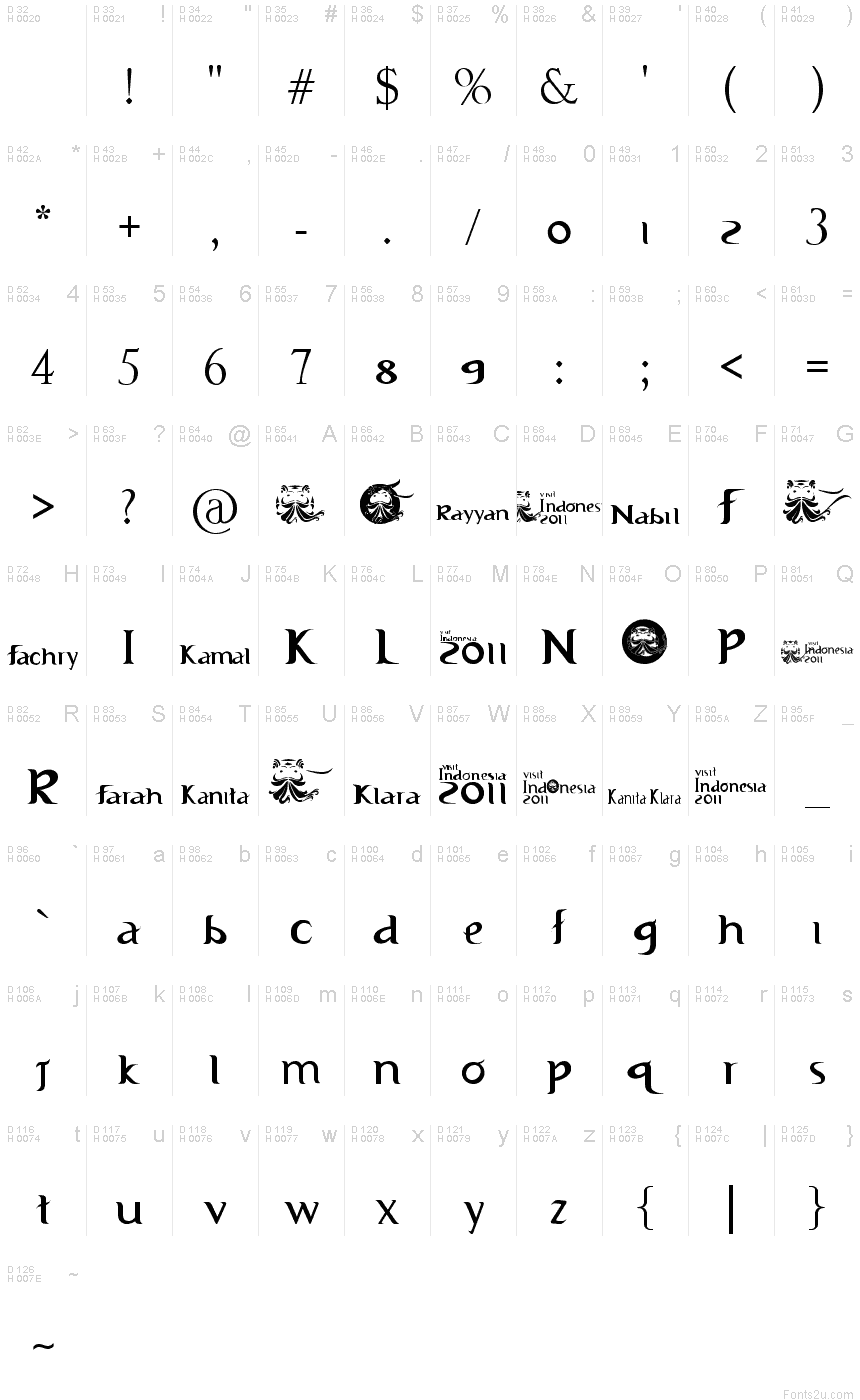
Visit Indonesia 2011 #2
Visit Indonesia 2011 #2, designed by Vidka, is a free Indonesian-inspired faux-script display font whose Latin letters carry an elaborate ornamental look. Sweeping, high-contrast strokes move between needle-like serifs and broad rounded curves, with compact mask-like faces and curling ornaments woven through the design at varying scales, so they read as part of the alphabet rather than simple accents.
Tourism brands and cultural festivals can use its theatrical detail across campaign posters, visitor guides, event programs, and travel merchandise, especially when the lettering is meant to echo carved decoration, masks, and folk performance. It speaks most directly to audiences drawn to Indonesian arts and heritage.